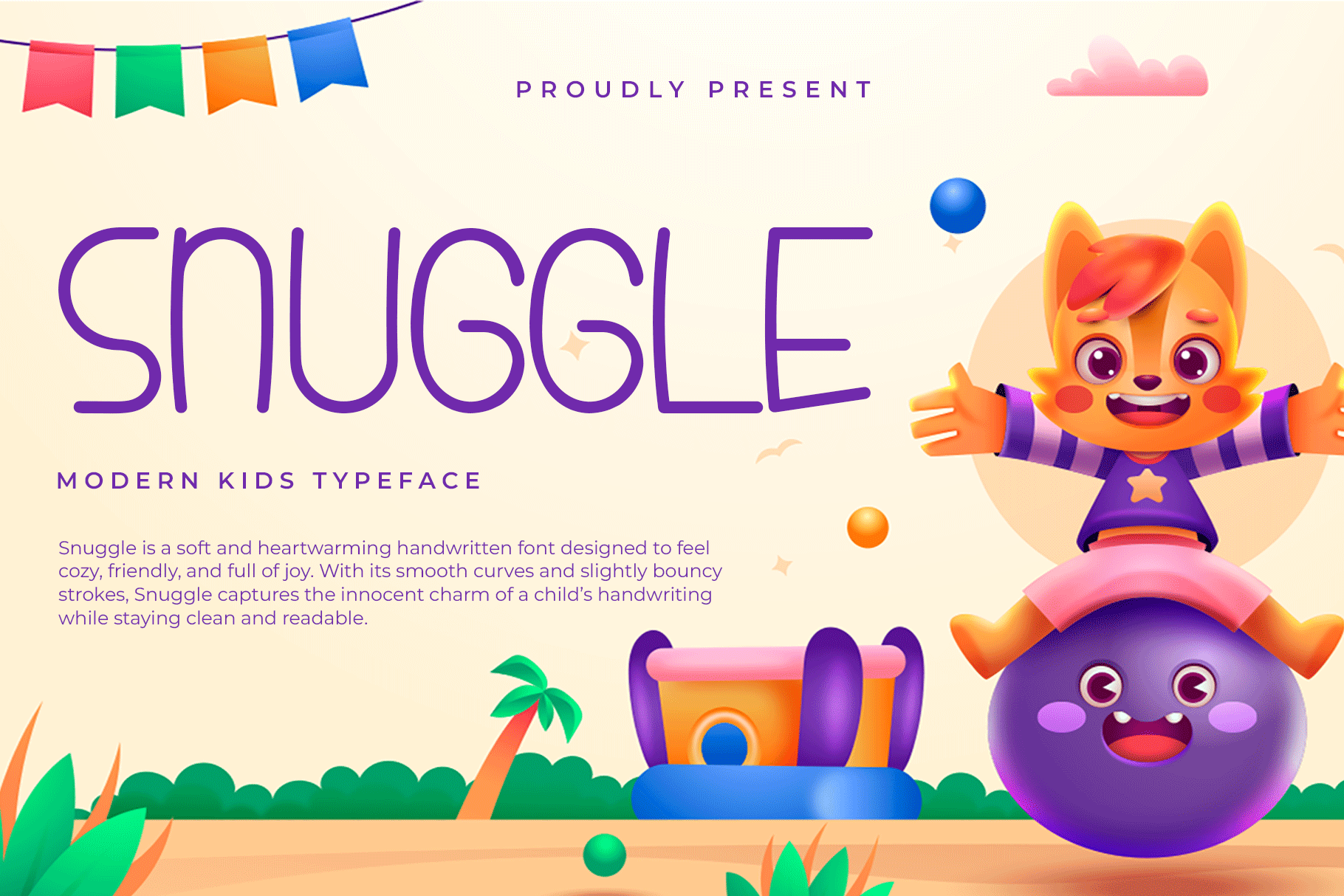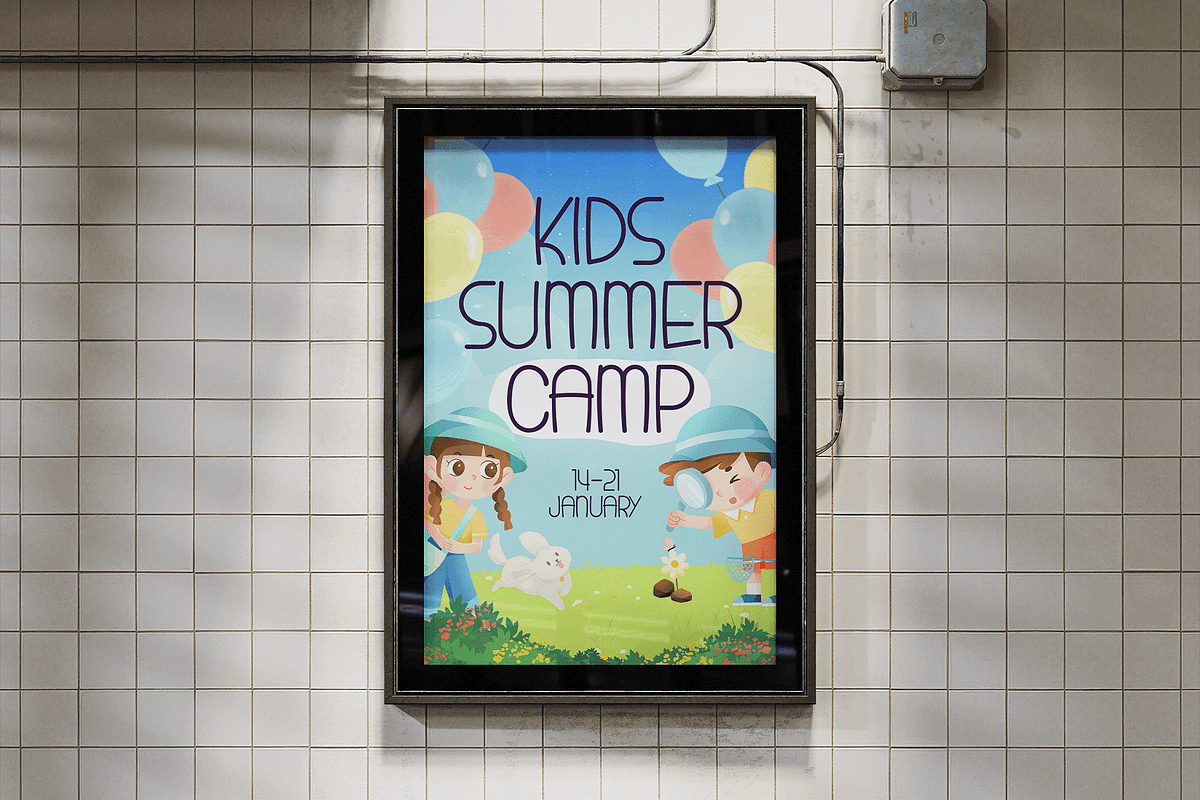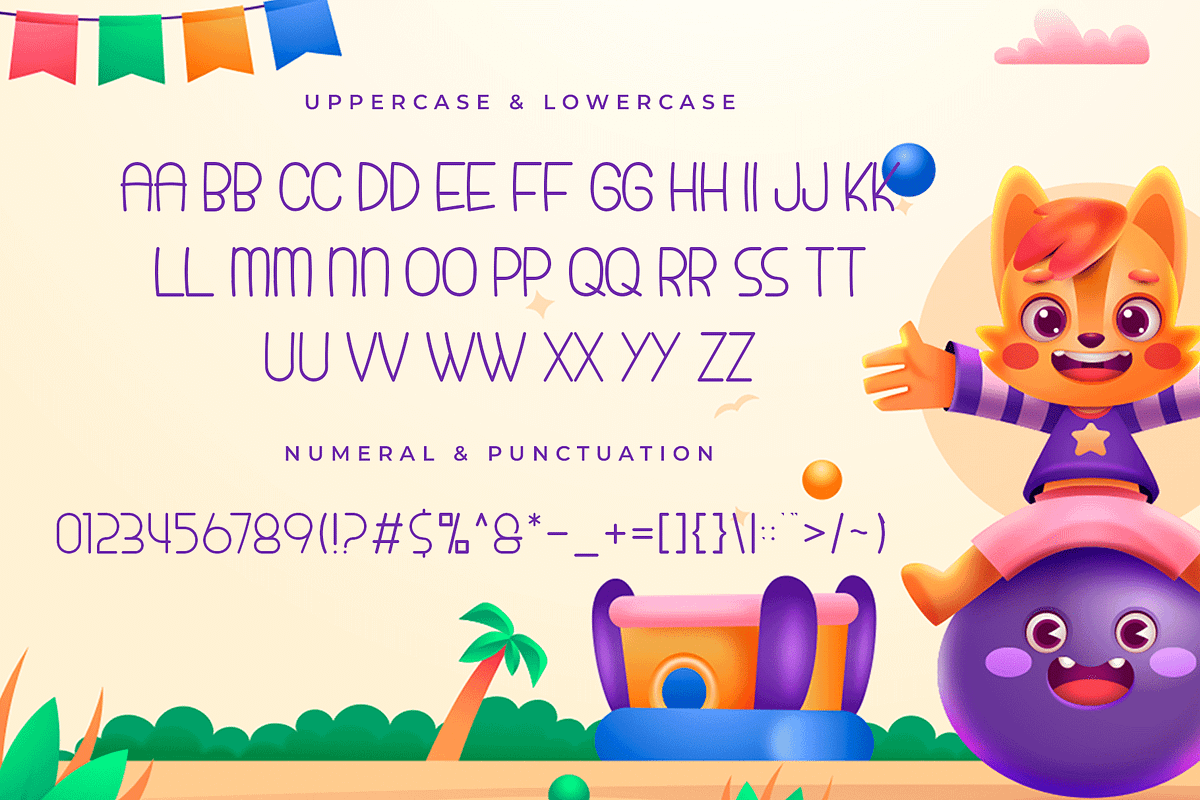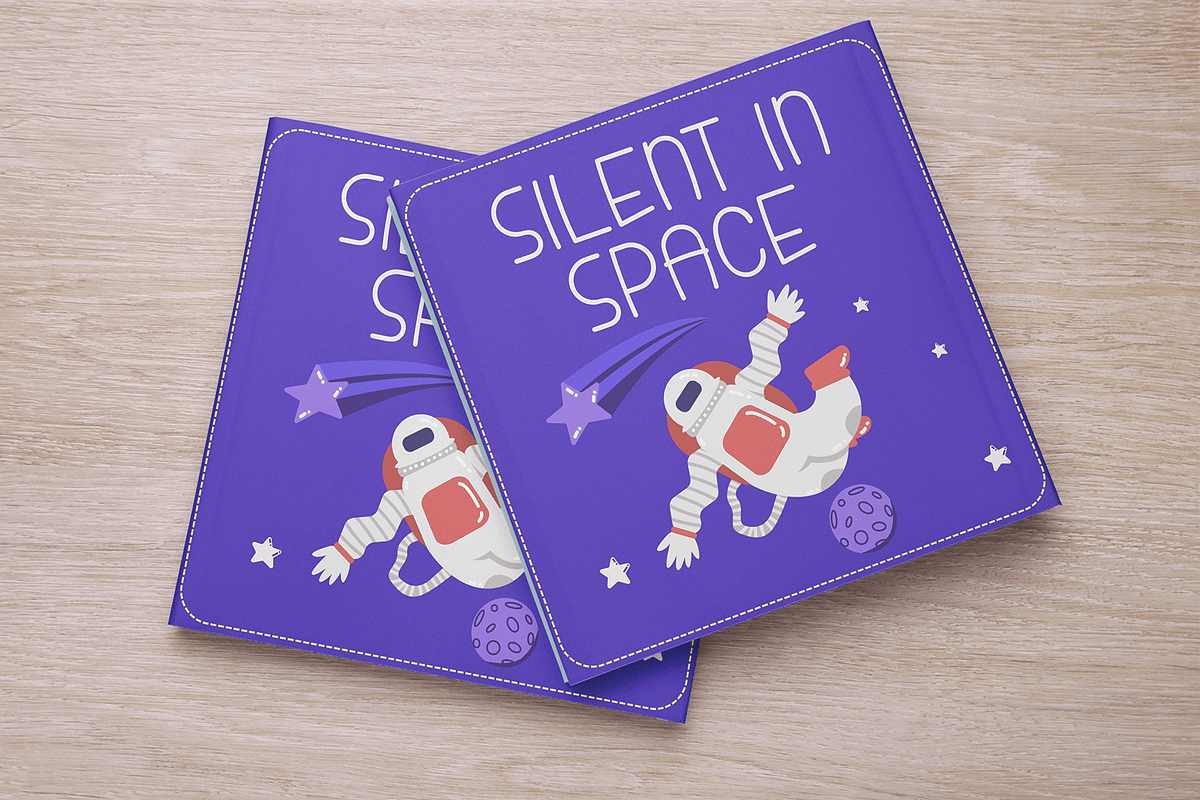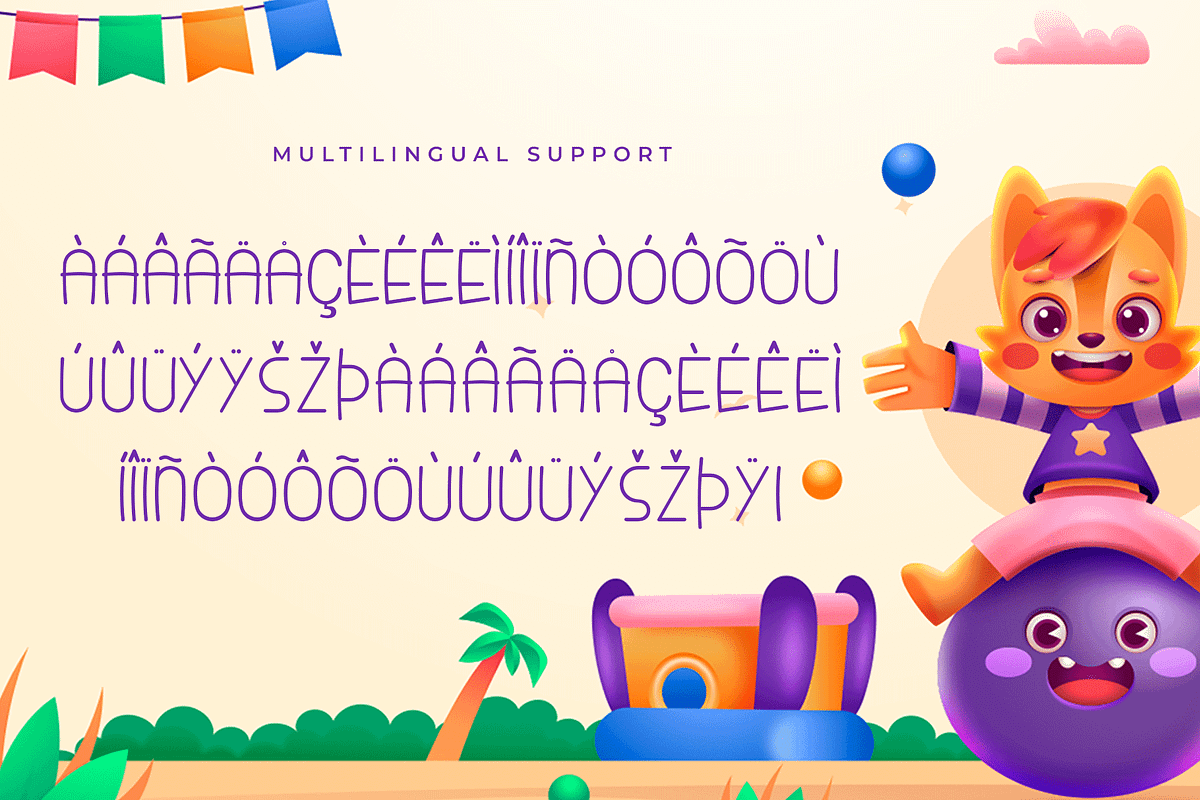
Snuggle – Modern Kids Typeface
Snuggle is a modern kids typeface designed to bring warmth, friendliness, and playful joy to your creative projects. With its rounded shapes, soft curves, and adorable character style, Snuggle creates a cozy and cheerful feeling that perfectly fits children themed designs.
Ideal for kids’ books, educational materials, toy packaging, birthday invitations, classroom decorations, cartoon branding, YouTube thumbnails, and playful merchandise, Snuggle offers a cute yet clean typographic style that stays easy to read.